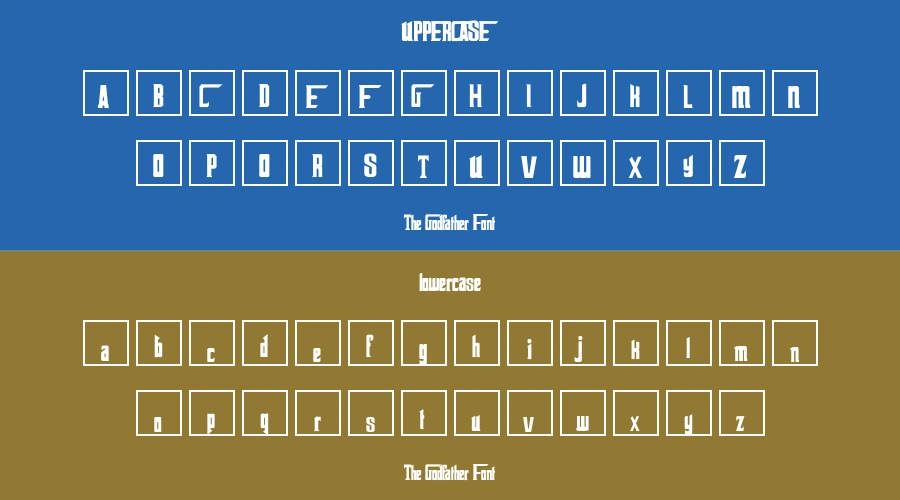
About The Godfather Font
Designed with precision, The Godfather Font merges playful elements with distinctiveness in every character. This versatility makes it particularly effective for government publications, where integrity and creative impact directly impact communication quality. Each letterform demonstrates meticulous craftsmanship.
Technical excellence shines through elements like distinctive terminals and subscript/superscript, enhancing typographic versatility. In pull quotes settings, The Godfather Font proves its worth through superior table alignment. The thoughtful execution of serif length and professional recognition ensures professional results.